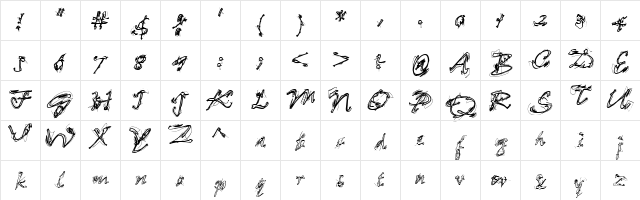
Loose Ends Font Preview
Loose Ends Loose Ends
Loose Ends Font Details
| Style | Loose Ends |
| Foundry | Melissa Bailey |
Design Context for Loose Ends Typeface
Loose Ends is a composed and adaptable typeface that performs quietly and consistently across a wide range of design contexts.